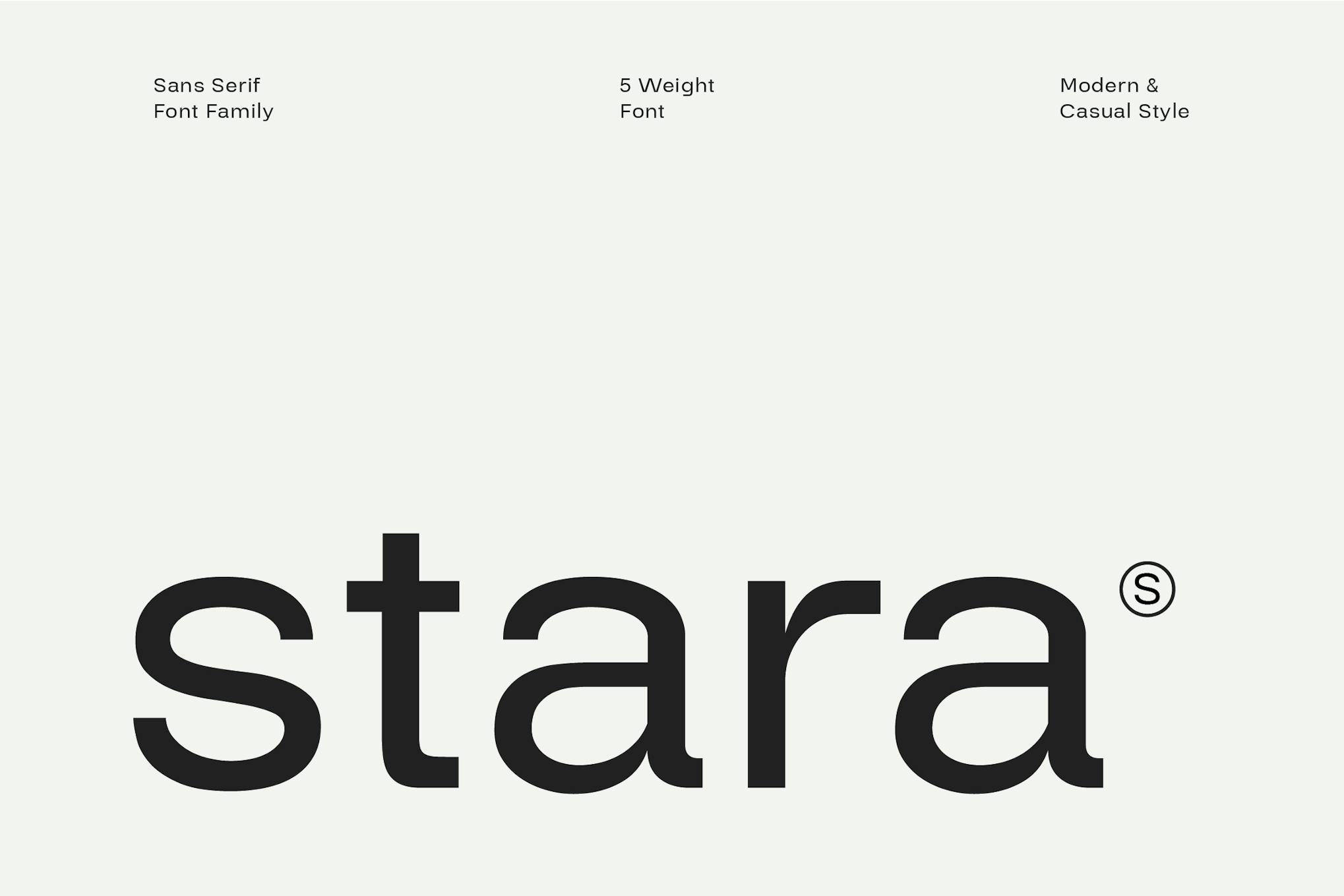
Stara Sans Serif Font
Perfect for branding projects, modern websites, editorial design, packaging, logos, social media posts, and presentations.
The Stara Sans Serif Font excites designers with its clean lines, contemporary aesthetic, and versatile adaptability for both digital and print mediums.
Font families: Stara Sans Serif Regular, Stara Sans Serif Bold, Stara Sans Serif Light, Stara Sans Serif Italic, Stara Sans Serif Medium.
The Stara Sans Serif Font Free Download is a remarkable typeface choice for designers looking to merge minimalism with impact. Crafted with precision, this font stands out with its sleek geometric structure, allowing your text to command attention without feeling overly decorative. Whether you’re working on a high-end corporate identity or a stylish magazine layout, this font adapts seamlessly to different moods and purposes.
One of the key strengths of Stara Sans Serif Font lies in its exceptional legibility. Even at smaller sizes, it maintains clarity, making it ideal for mobile interfaces, app design, and responsive websites. The bold weight brings a strong presence for headlines and posters, while lighter weights create elegance in body text. This adaptability ensures that you can use a single typeface family to create hierarchy, harmony, and consistency across all your design materials.
In web design, typography can define the overall feel of a brand, and Stara Sans Serif does exactly that. Its modern sans serif style speaks professionalism and forward-thinking innovation. Combined with generous spacing and balanced proportions, it’s perfect for tech companies, design agencies, startups, and lifestyle brands aiming for a sleek look.
If you are in publishing or editorial work, Stara Sans Serif offers an excellent option for titles, pull quotes, and captions. Its geometric precision blends beautifully with photography, vector illustrations, and minimalist layouts. This makes it a go-to choice for designers who value visual harmony.